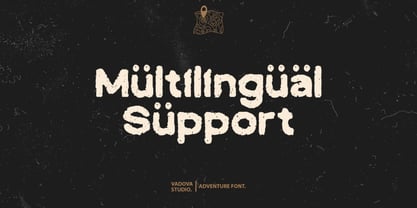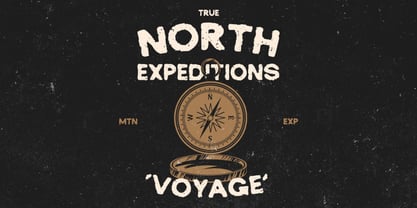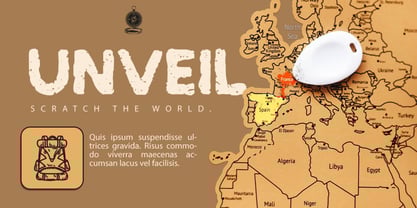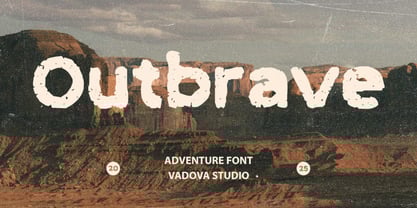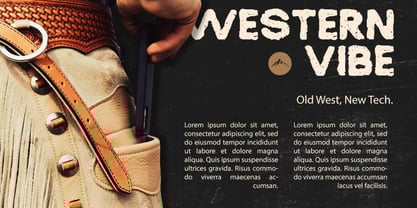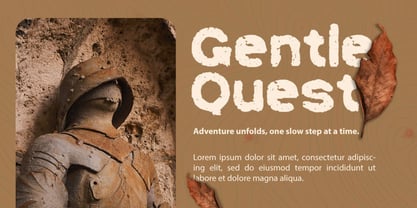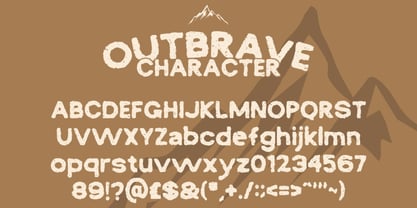
Outbrave
Elevate your designs with Outbrave Adventure Font, an adventure-themed font that captures the spirit of exploration and the great outdoors. With a rugged and textured appearance, it embodies the essence of nature, survival, and bravery. This font is perfect for branding, posters, and projects related to outdoor activities, camping, hiking, and adventure storytelling. Its bold and rough style adds a dynamic and authentic touch to any design, making it ideal for those who seek to convey a sense of thrill and wilderness.
Main Features
* Uppercase & Lowercase characters
* Numeral & Punctuations